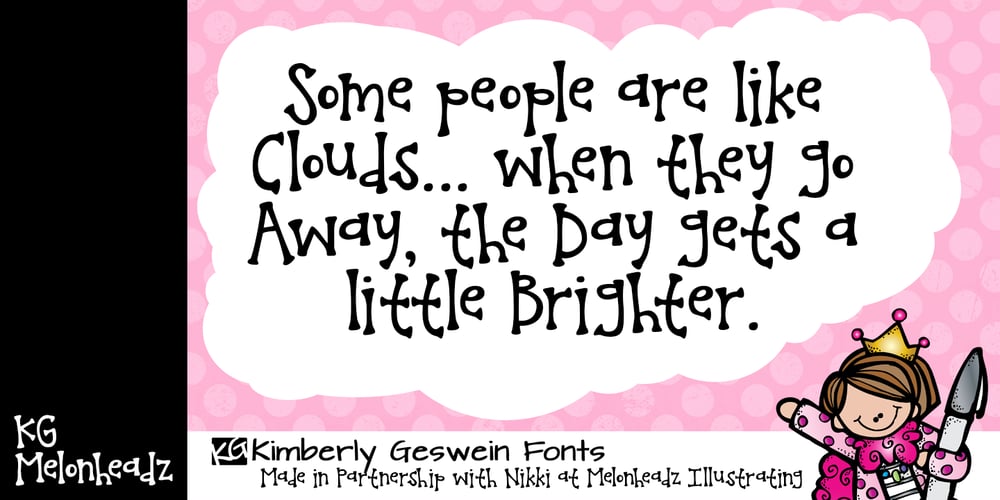
KG Melonheadz
KG Melonheadz font
KG Melonheadz Font Family was designed by Kimberly Geswein and published by Kimberly Geswein. KG Melonheadz contains 1 styles and family package options. This font was made in collaboration with Nikki at Melonheadz Illustrating. The quirky look and feel of the lettering is perfect for illustrations for children.